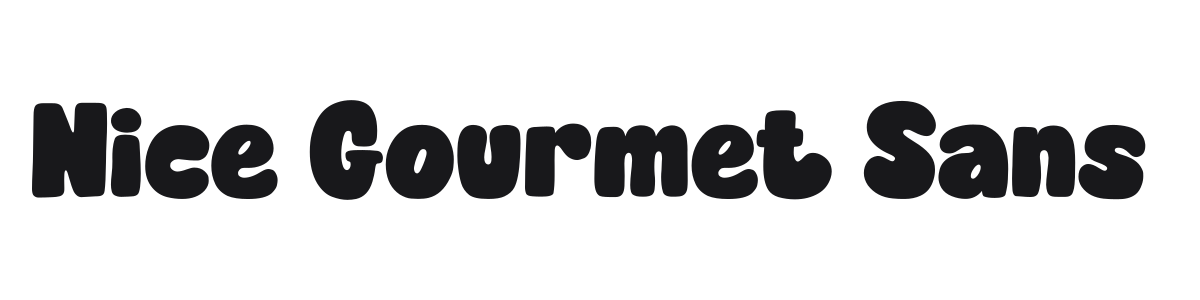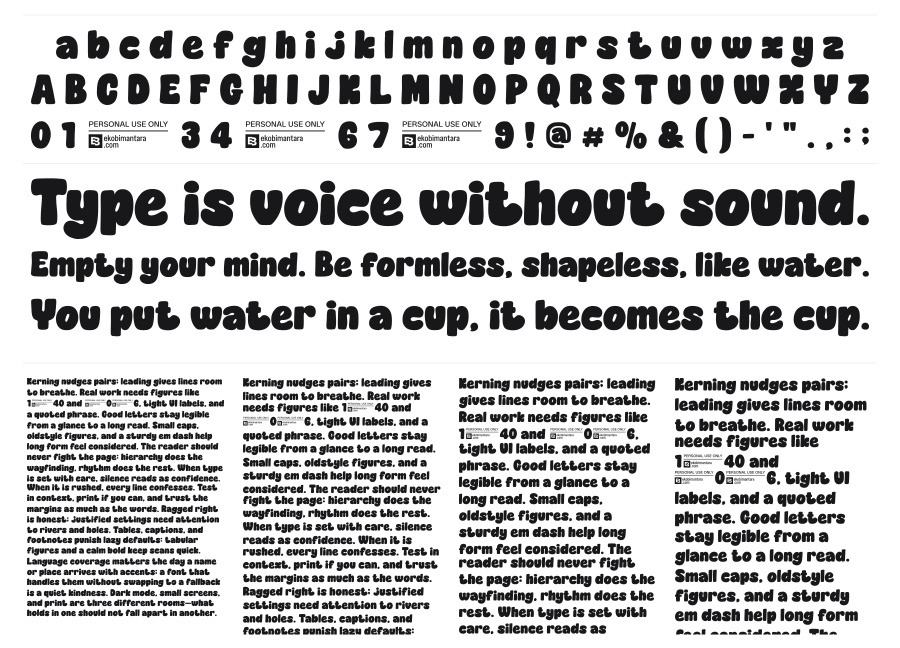
Nice Gourmet Sans
by Eko Bimantara
Nice Gourmet Sans is a heavy, rounded display font with a distinctly groovy, retro personality. Its inflated blob-like strokes and deeply rounded terminals pack maximum personality into each character, recalling the funky food and entertainment graphics of the 1970s. Great for casual food branding, posters, and anywhere a bold, friendly attitude is needed.